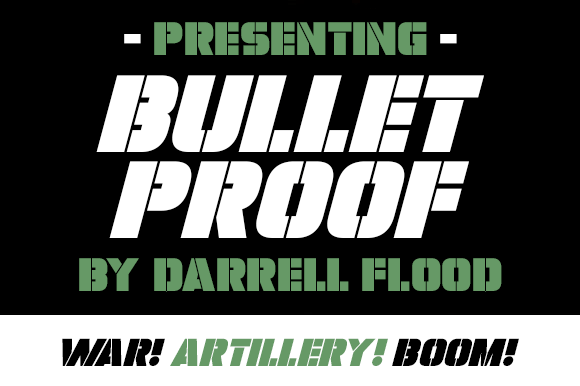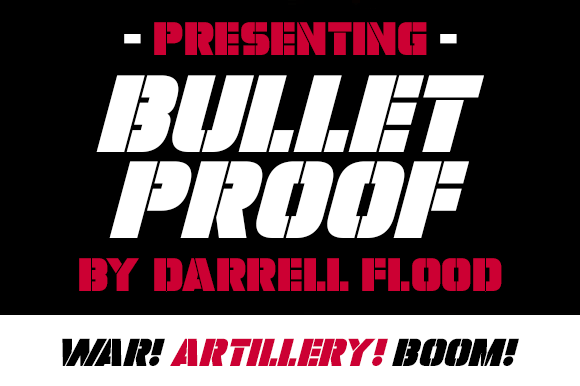
Bulletproof Font
About the Bulletproof Font
Unleash your creativity with Bulletproof Font, a versatile font perfect for a wide range of applications. A heavy impact army-like font in a slick, stencil, yet modern style. Perfect for war themes, pitched battles, alien attacks and general use!
Bulletproof Font’s strong, stencil-like forms excel in headlines, logos, and short, impactful phrases across posters, branding materials, and packaging. Its assertive nature makes it unsuitable for body text or UI elements where readability over extended lengths is crucial.
The font’s core personality is bold and assertive, conveying strength and a modern military aesthetic. This makes it ideal for brands focused on action, security, or technology, needing a strong visual presence. Consider pairing it with a clean sans-serif like Open Sans for contrast, or a more technical geometric font such as Roboto Mono for a futuristic feel.
For a slightly softer contrast, a neutral serif like Merriweather can add readability to supporting text, balancing the weight of Bulletproof Font without detracting from its impact. Avoid pairing it with script fonts, as this would clash with its assertive, geometric structure.
Bulletproof Font Usage Examples
Bulletproof Font Example